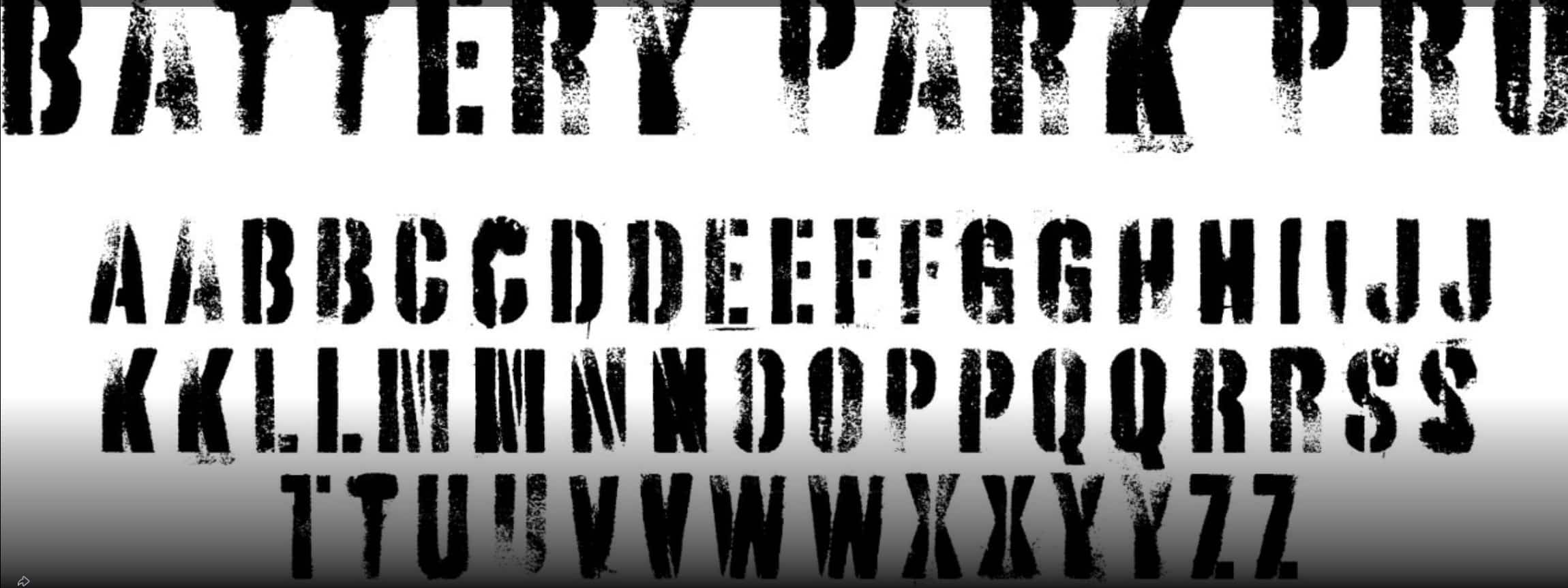
Battery Park Font
Battery Park Font - Join our mailing list recently viewed battery park font showcases 2025 january 2024 Designed by rian hughes, battery park is a grunge and stencil font published by device. Battery park is a distorted, eroded, and fancy font designed by rian hughes. This font features a bold, distressed stencil style with a rough, textured appearance. This stencil font, inspired by a fleeting glimpse of a bronx plumber’s van seen through the rain. A decorative typeface with 1 style, available from adobe fonts for sync and web use.
Battery park is a distorted, eroded, and fancy font designed by rian hughes. This font features a bold, distressed stencil style with a rough, textured appearance. Join our mailing list recently viewed battery park font showcases 2025 january 2024 Designed by rian hughes, battery park is a grunge and stencil font published by device. This stencil font, inspired by a fleeting glimpse of a bronx plumber’s van seen through the rain. A decorative typeface with 1 style, available from adobe fonts for sync and web use.
Designed by rian hughes, battery park is a grunge and stencil font published by device. A decorative typeface with 1 style, available from adobe fonts for sync and web use. This stencil font, inspired by a fleeting glimpse of a bronx plumber’s van seen through the rain. Battery park is a distorted, eroded, and fancy font designed by rian hughes. Join our mailing list recently viewed battery park font showcases 2025 january 2024 This font features a bold, distressed stencil style with a rough, textured appearance.
Designed by rian hughes, battery park is a grunge and stencil font published by device. Join our mailing list recently viewed battery park font showcases 2025 january 2024 Battery park is a distorted, eroded, and fancy font designed by rian hughes. This stencil font, inspired by a fleeting glimpse of a bronx plumber’s van seen through the rain. This font.
Designed by rian hughes, battery park is a grunge and stencil font published by device. Join our mailing list recently viewed battery park font showcases 2025 january 2024 Battery park is a distorted, eroded, and fancy font designed by rian hughes. A decorative typeface with 1 style, available from adobe fonts for sync and web use. This stencil font, inspired.
This font features a bold, distressed stencil style with a rough, textured appearance. Join our mailing list recently viewed battery park font showcases 2025 january 2024 Battery park is a distorted, eroded, and fancy font designed by rian hughes. A decorative typeface with 1 style, available from adobe fonts for sync and web use. This stencil font, inspired by a.
This stencil font, inspired by a fleeting glimpse of a bronx plumber’s van seen through the rain. A decorative typeface with 1 style, available from adobe fonts for sync and web use. Battery park is a distorted, eroded, and fancy font designed by rian hughes. Join our mailing list recently viewed battery park font showcases 2025 january 2024 Designed by.
Battery park is a distorted, eroded, and fancy font designed by rian hughes. This font features a bold, distressed stencil style with a rough, textured appearance. Join our mailing list recently viewed battery park font showcases 2025 january 2024 A decorative typeface with 1 style, available from adobe fonts for sync and web use. This stencil font, inspired by a.
This font features a bold, distressed stencil style with a rough, textured appearance. Designed by rian hughes, battery park is a grunge and stencil font published by device. A decorative typeface with 1 style, available from adobe fonts for sync and web use. This stencil font, inspired by a fleeting glimpse of a bronx plumber’s van seen through the rain..
Designed by rian hughes, battery park is a grunge and stencil font published by device. A decorative typeface with 1 style, available from adobe fonts for sync and web use. Battery park is a distorted, eroded, and fancy font designed by rian hughes. This stencil font, inspired by a fleeting glimpse of a bronx plumber’s van seen through the rain..
This font features a bold, distressed stencil style with a rough, textured appearance. A decorative typeface with 1 style, available from adobe fonts for sync and web use. This stencil font, inspired by a fleeting glimpse of a bronx plumber’s van seen through the rain. Join our mailing list recently viewed battery park font showcases 2025 january 2024 Battery park.
A decorative typeface with 1 style, available from adobe fonts for sync and web use. Designed by rian hughes, battery park is a grunge and stencil font published by device. This stencil font, inspired by a fleeting glimpse of a bronx plumber’s van seen through the rain. Join our mailing list recently viewed battery park font showcases 2025 january 2024.
Designed by rian hughes, battery park is a grunge and stencil font published by device. This font features a bold, distressed stencil style with a rough, textured appearance. This stencil font, inspired by a fleeting glimpse of a bronx plumber’s van seen through the rain. A decorative typeface with 1 style, available from adobe fonts for sync and web use.